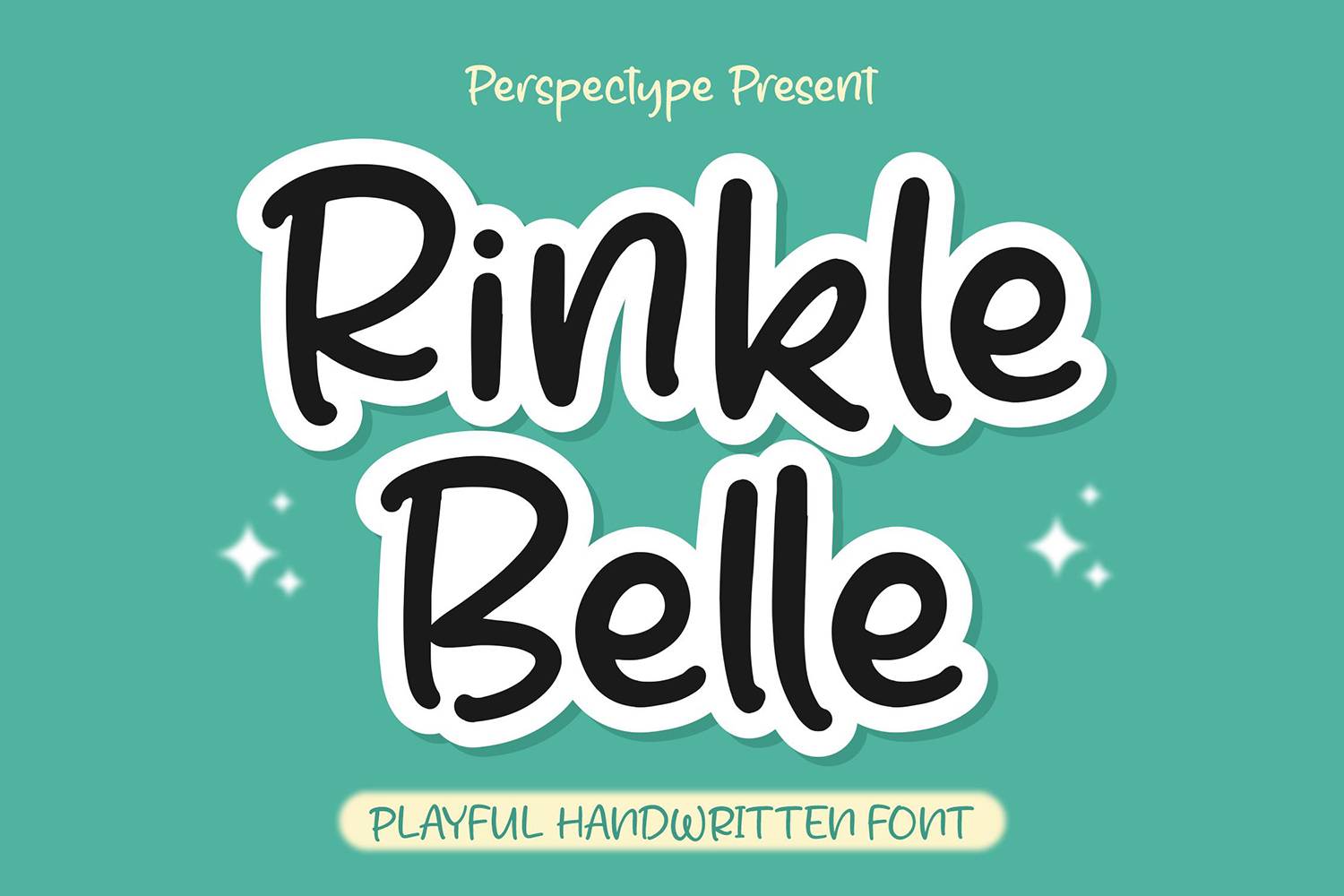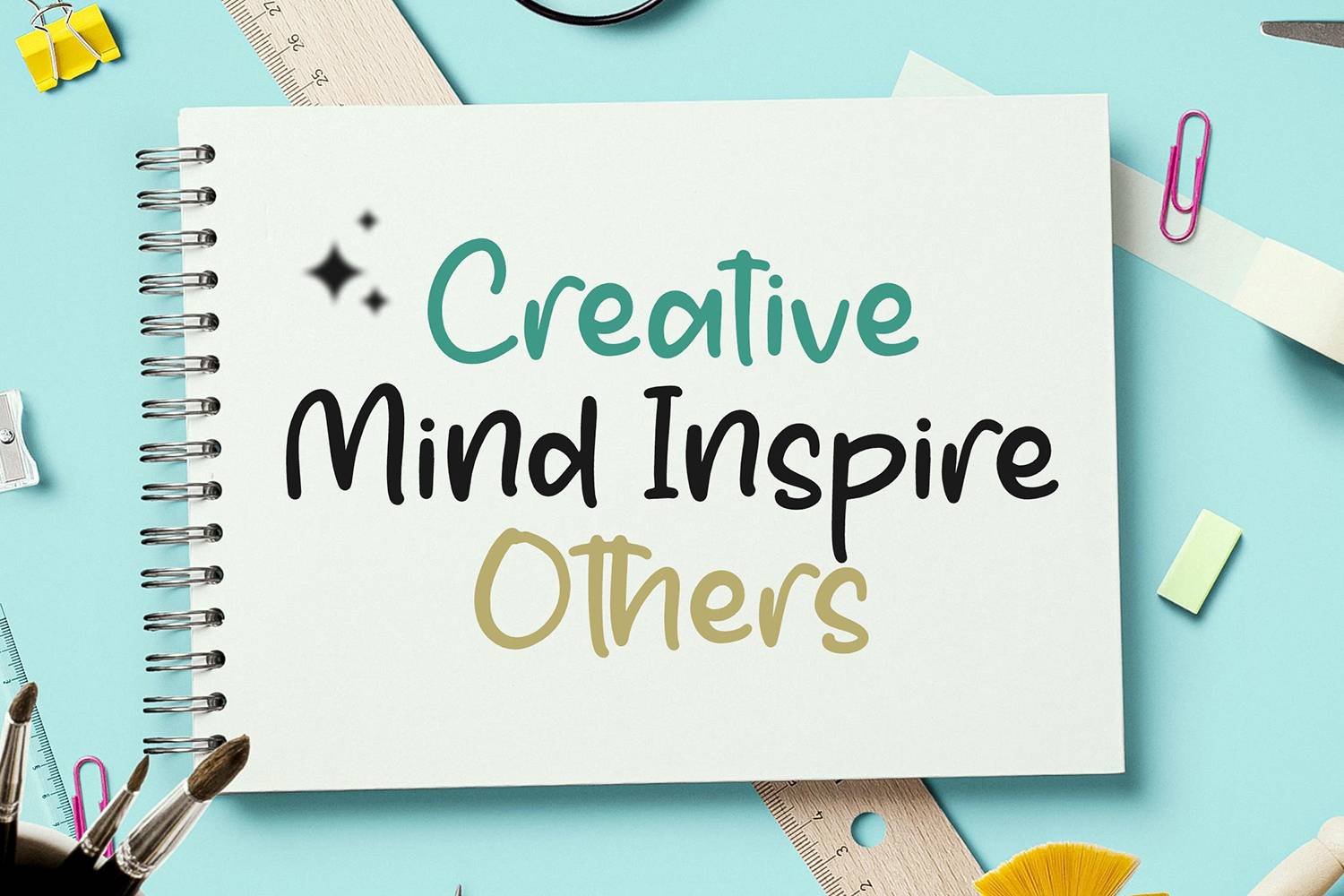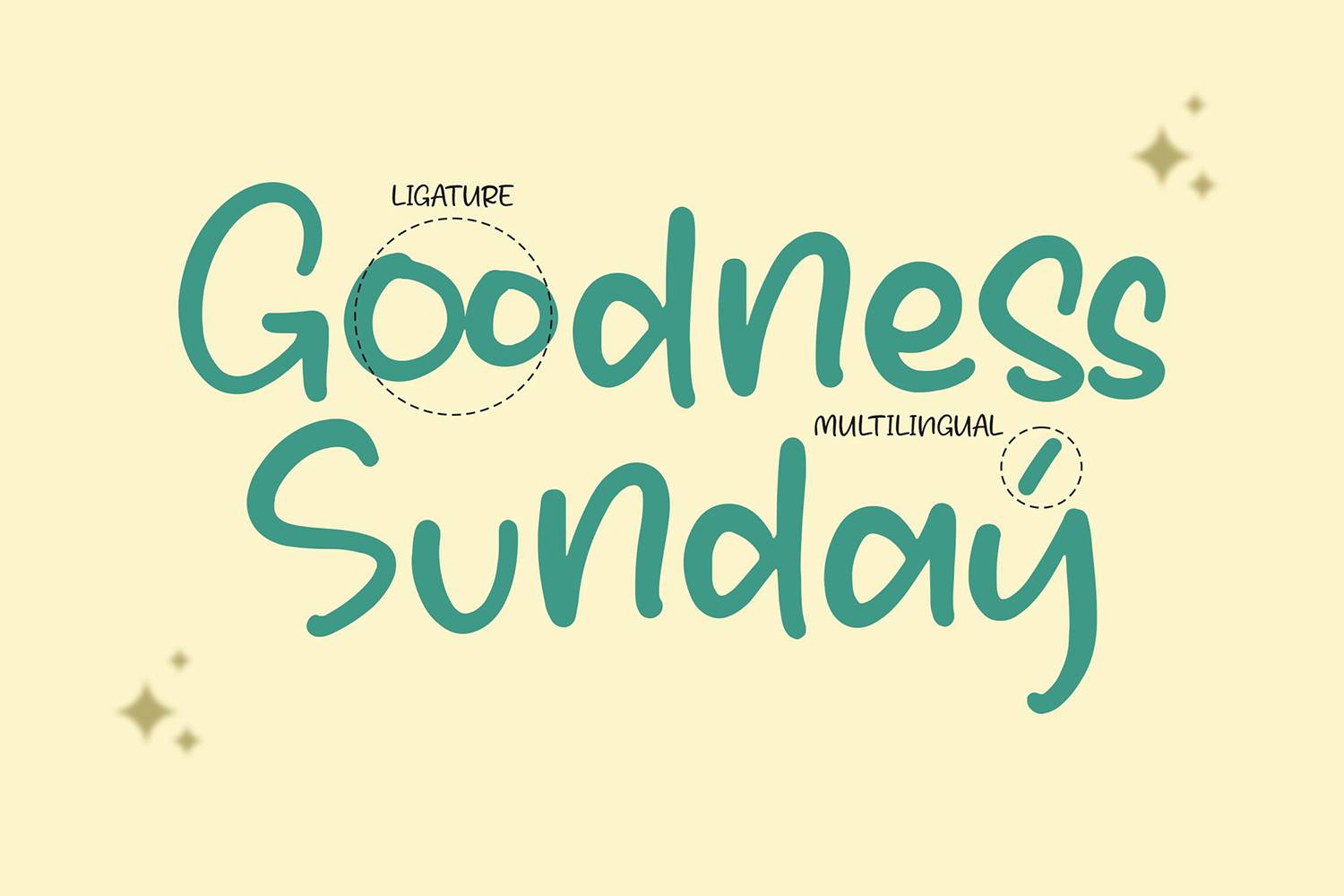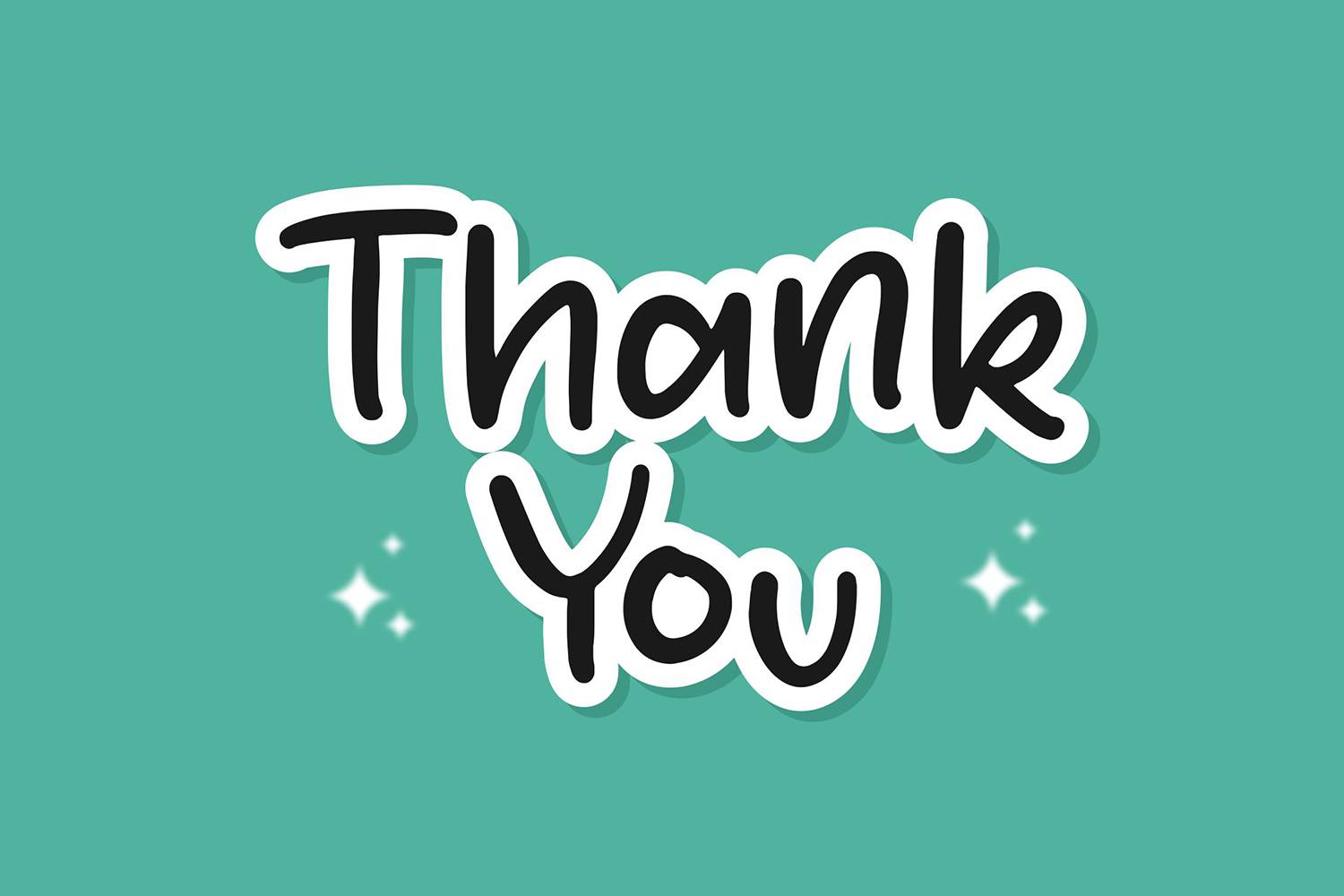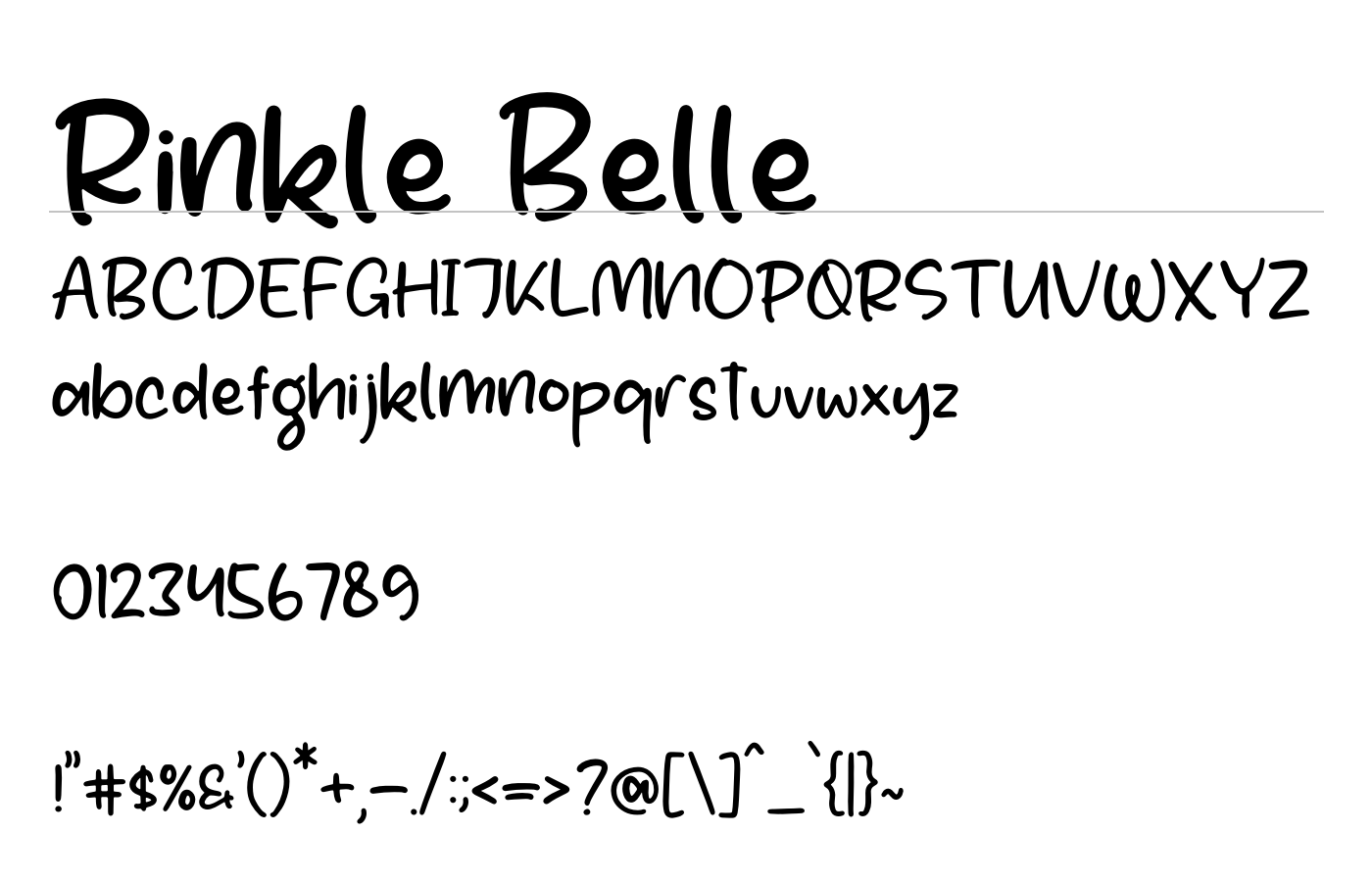
Rinkle Belle is a playful, hand-drawn sans serif font with a casual and friendly feel. Its irregular strokes and rounded edges give it an approachable, informal look, making it ideal for creative projects, children's books, or branding that seeks a warm, personal touch. This font works best in headlines, invitations, or any design where a lively and charming vibe is desired.
Rinkle Belle Font
About Rinkle Belle Font